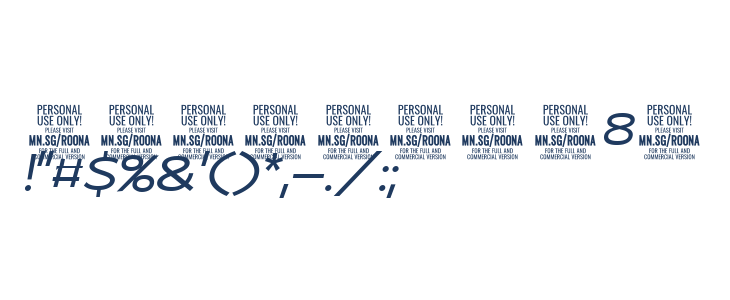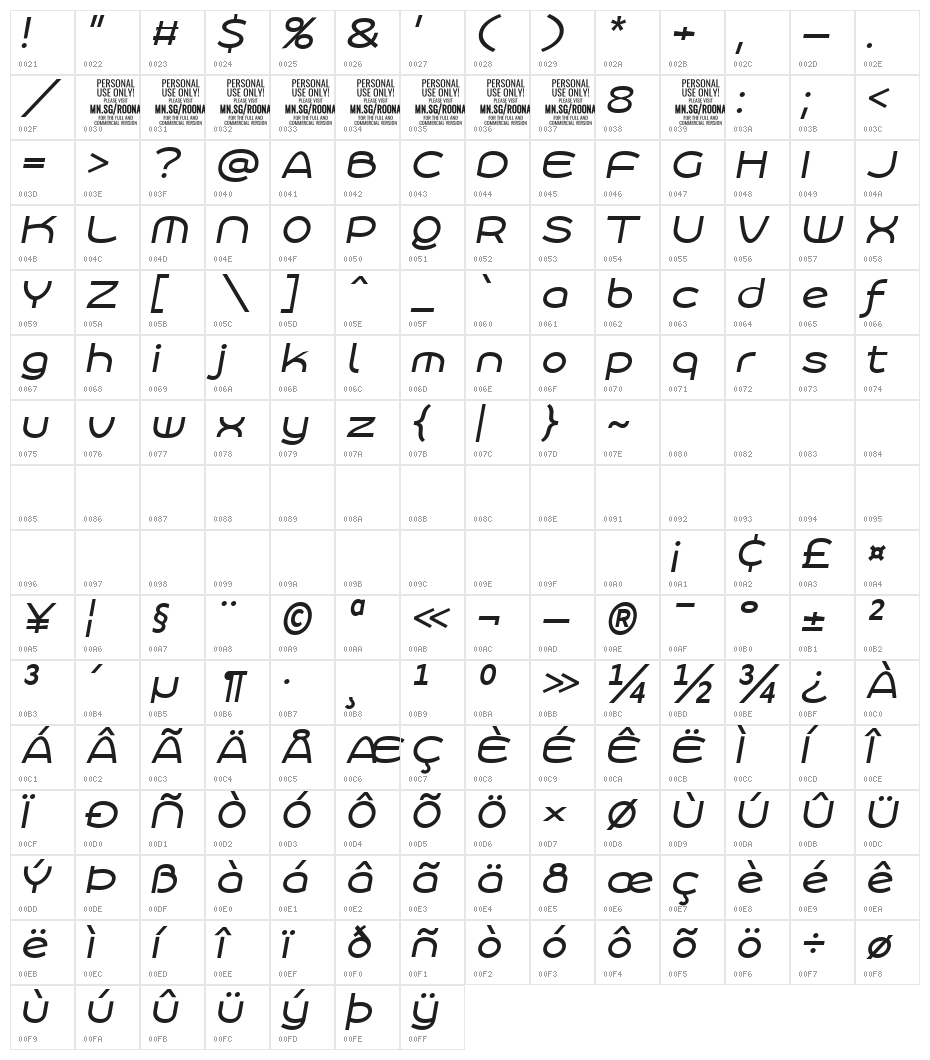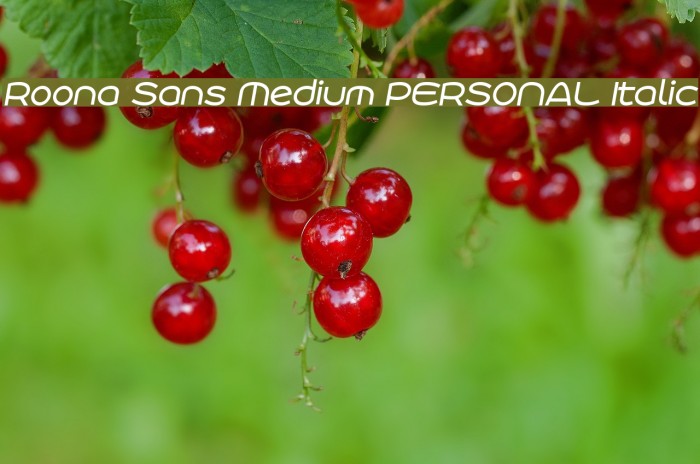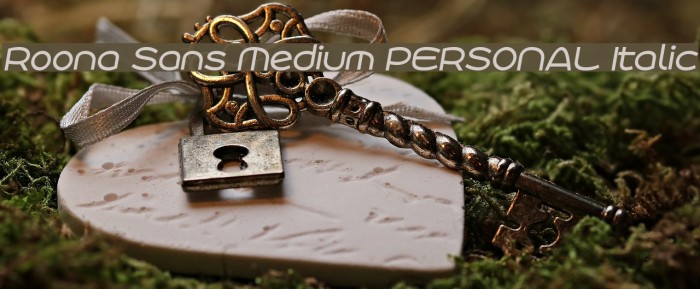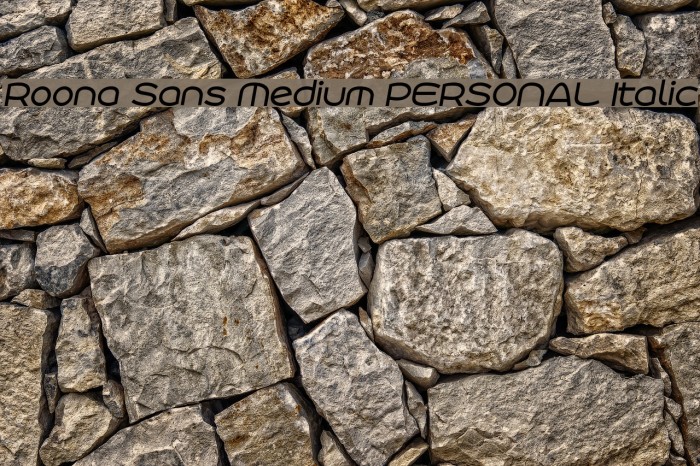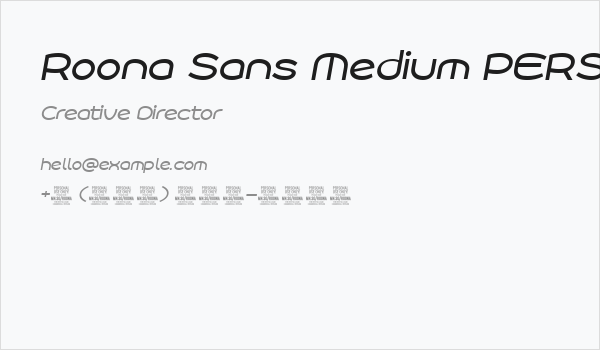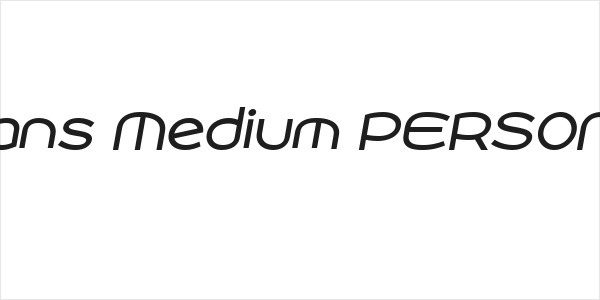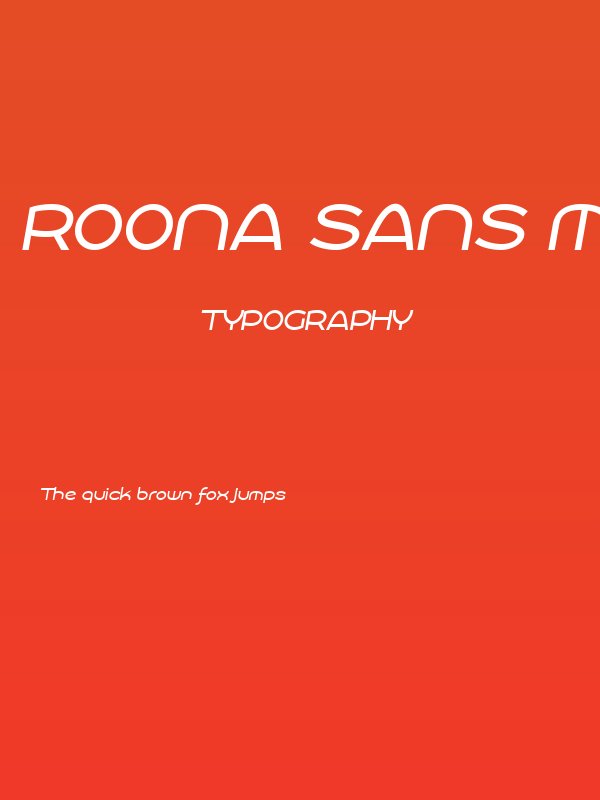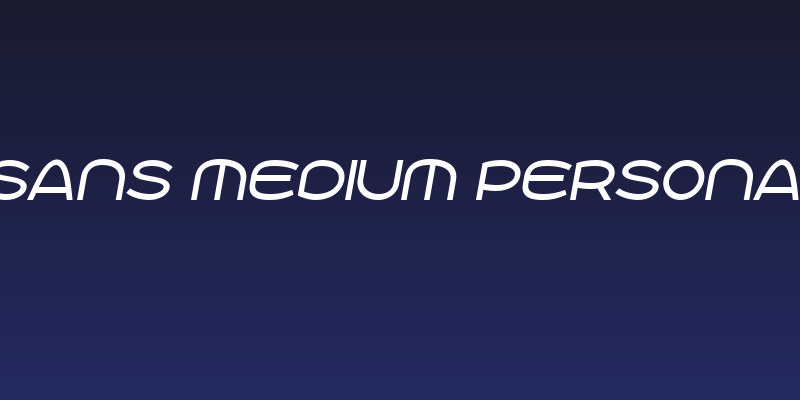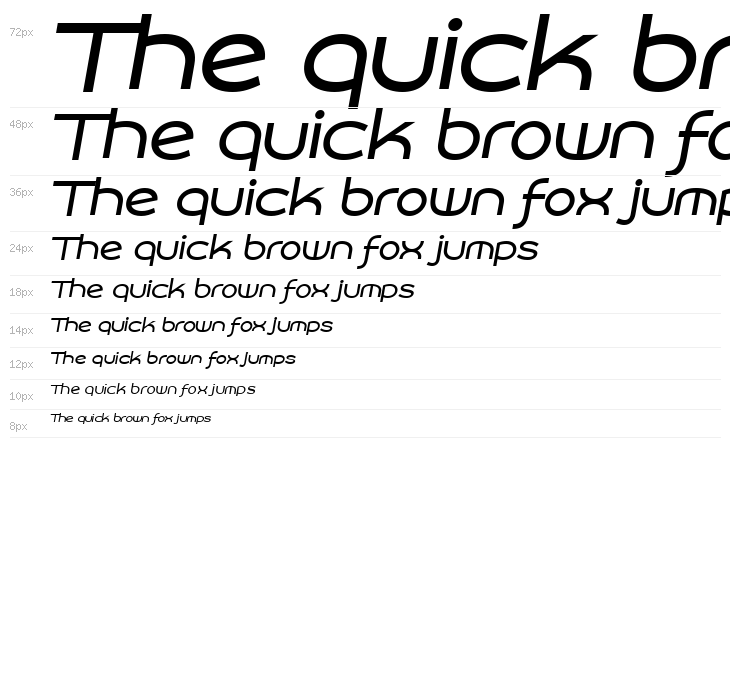
Roona Sans Medium PERSONAL Italic Font
Roona Sans Medium PERSONAL Italic Description
This font features a sleek, modern design with a subtle italic slant, giving it a dynamic and forward-moving appearance. The characters are crafted with smooth curves and clean lines, creating a harmonious and fluid look. The uppercase letters maintain a consistent height, while the lowercase letters are slightly rounded, adding a touch of softness to the overall style. The numerals and special characters are designed to match the font's contemporary aesthetic, ensuring uniformity across all text. This font's medium weight provides a balanced presence, making it versatile for various design applications.
| Use Case | Headlines, Logos, Digital Media |
| Proposed Projects | Ideal for branding, advertising, and digital media projects where a modern and sleek appearance is desired. |